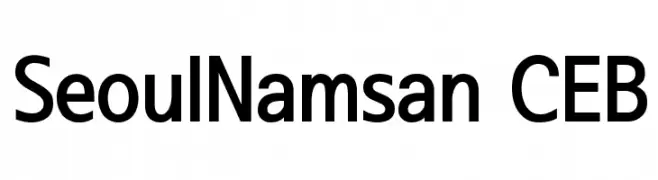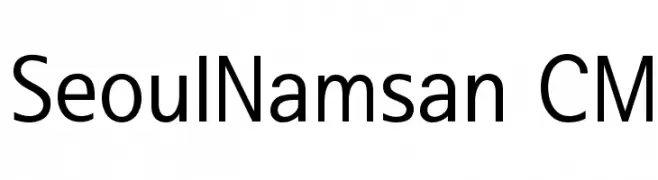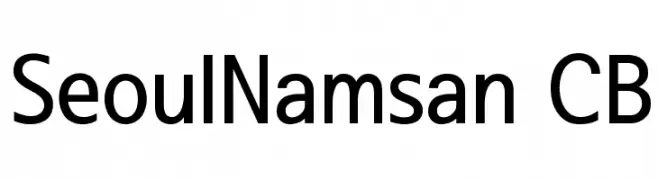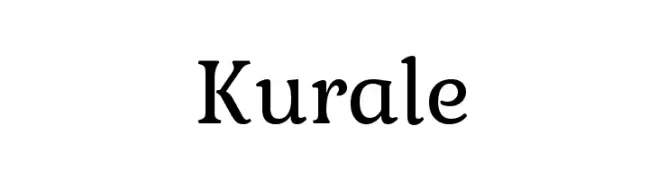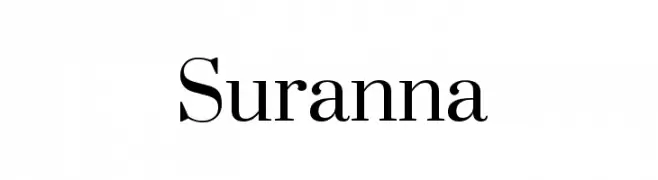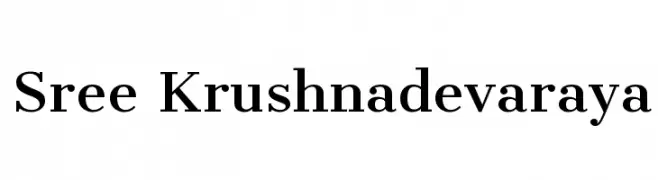
A modern sans-serif font with clean, uniform strokes and excellent readability.
A modern sans-serif font with clean, balanced letterforms and consistent stroke widths.
A modern, clean sans-serif font with balanced spacing and consistent stroke width.
A modern, clean sans-serif font with uniform stroke width and excellent readability.
A modern serif font with medium contrast and elegant lines.
A bold, classic serif font with strong, elegant strokes.
A classic serif font with elegant curves and moderate contrast, ideal for formal and traditional uses.
A classic serif font with elegant strokes and refined design.
A classic serif font with elegant strokes and refined serifs.
A bold, italicized sans-serif font with clean lines and modern appeal.